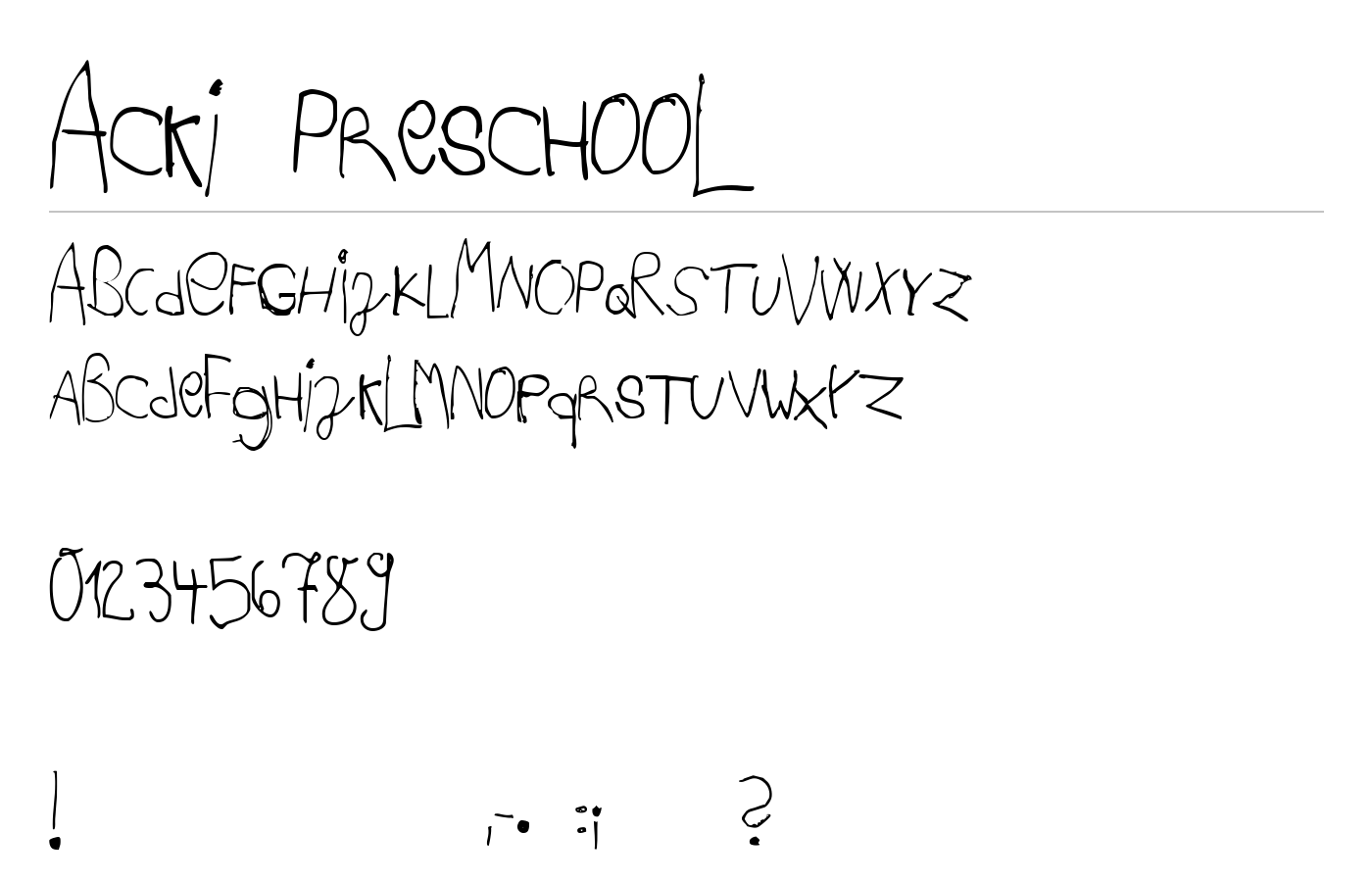
Acki Preschool is a playful, hand-drawn sans serif font that mimics the uneven, whimsical style of children's handwriting. Its thin, irregular strokes and quirky letterforms create a fun and informal feel, making it perfect for educational materials, kids' books, and creative projects aimed at young audiences. This font adds a charming, approachable touch wherever a youthful and friendly vibe is needed.
Acki Preschool Font
About Acki Preschool Font